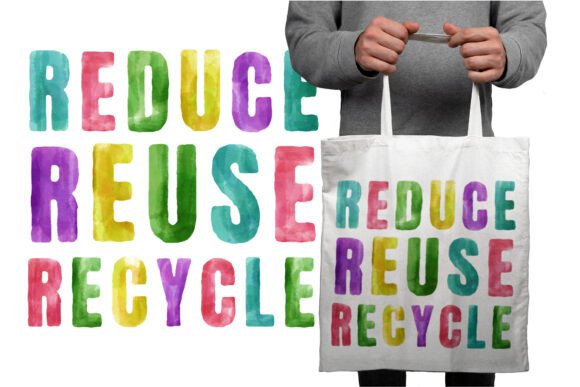
Happy Watercolor Font
Happy Watercolor is a charming, hand-painted font with a whimsical touch. Perfect for invitations, branding, quotes, and creative projects, it adds warmth and personality to any design. Let your creativity flow with this delightful, artistic typeface! 🎨✨